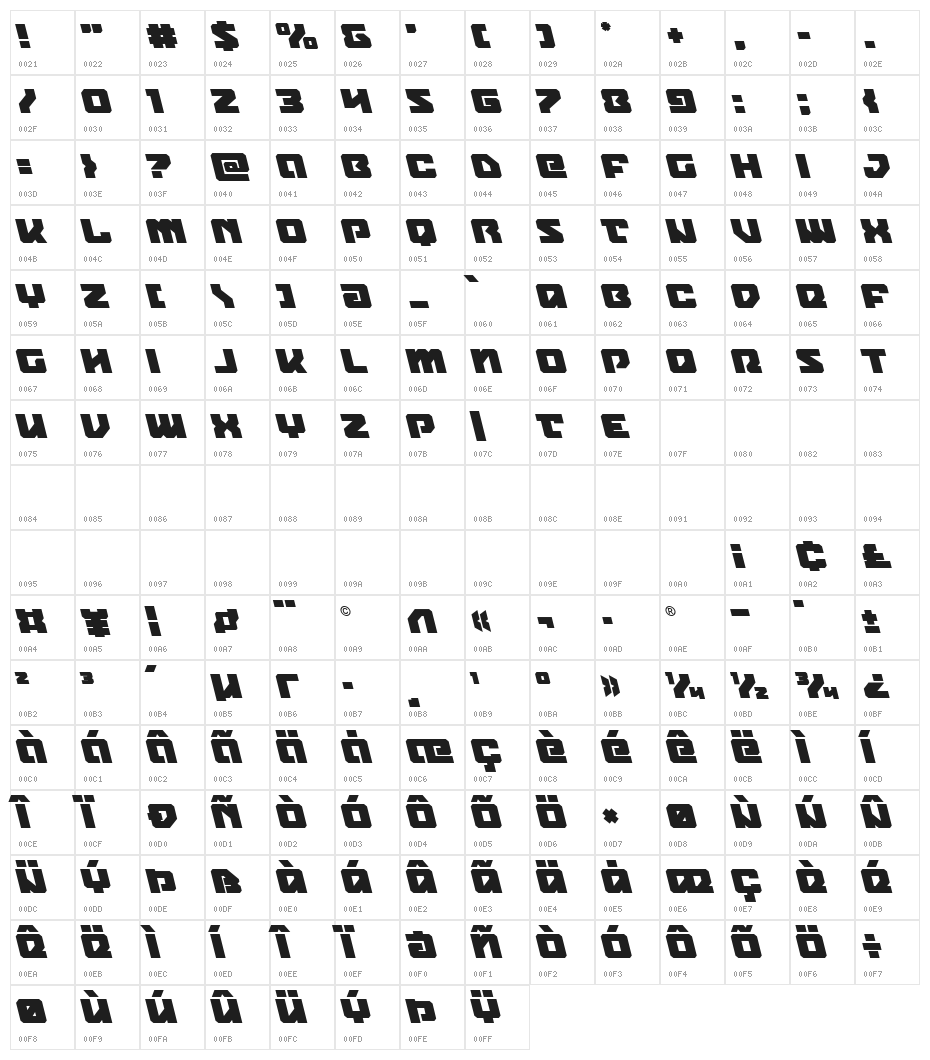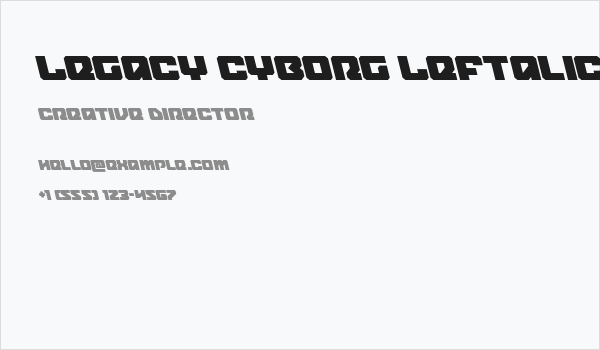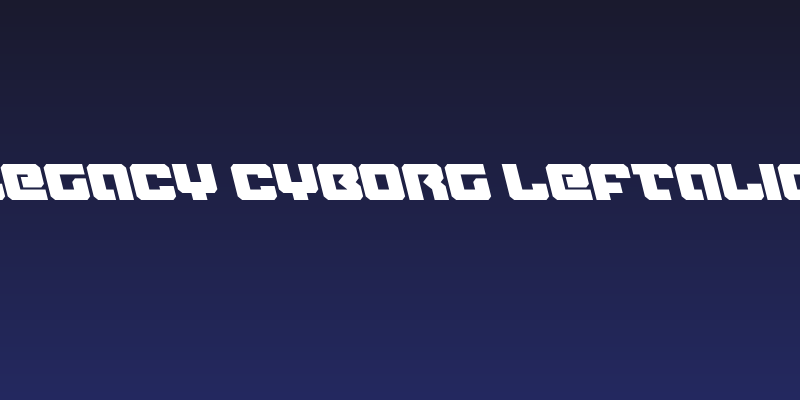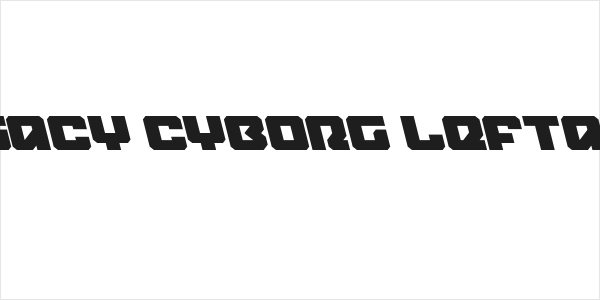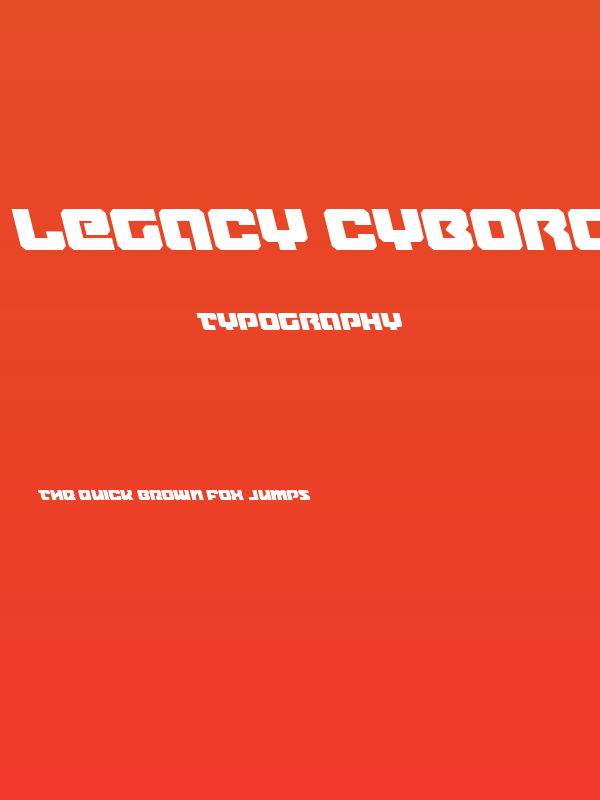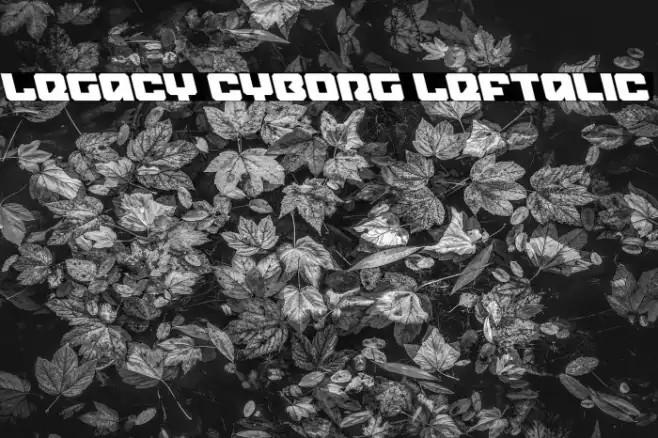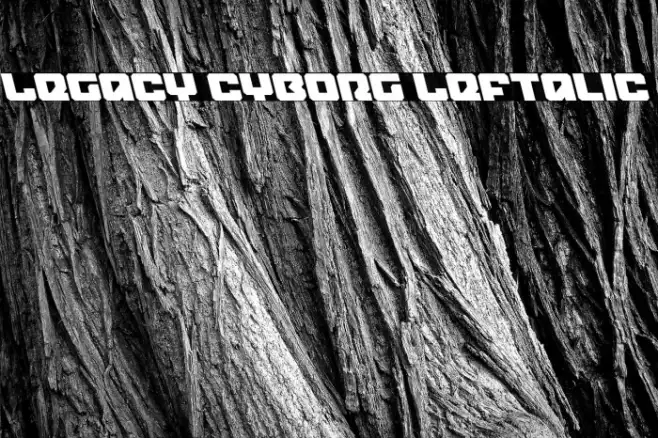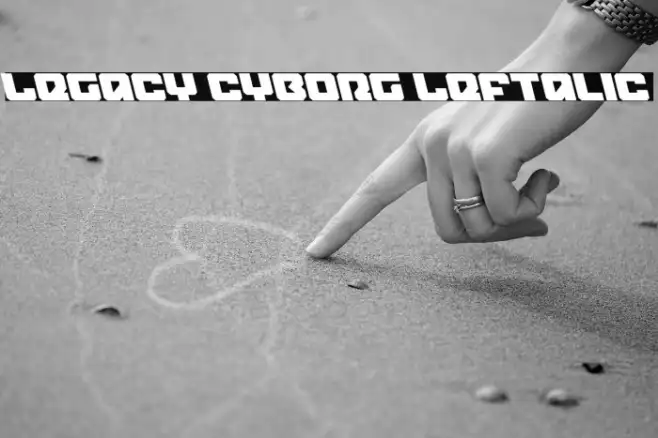
Legacy Cyborg Leftalic Font
Legacy Cyborg Leftalic Description
This font features a bold, futuristic design with a distinctly angular and geometric style. The characters are constructed with sharp edges and a blocky appearance, giving it a strong, industrial feel. The uppercase and lowercase letters maintain a consistent width, contributing to a uniform look across the typeface. The numbers and special characters follow the same design principles, ensuring cohesion throughout. The font's unique style is reminiscent of science fiction and cyberpunk aesthetics, making it ideal for projects that require a modern and edgy look.
| Overall Style | Futuristic, Industrial |
| Proposed Projects | Ideal for sci-fi themed posters, video game titles, tech branding, and futuristic event flyers. |